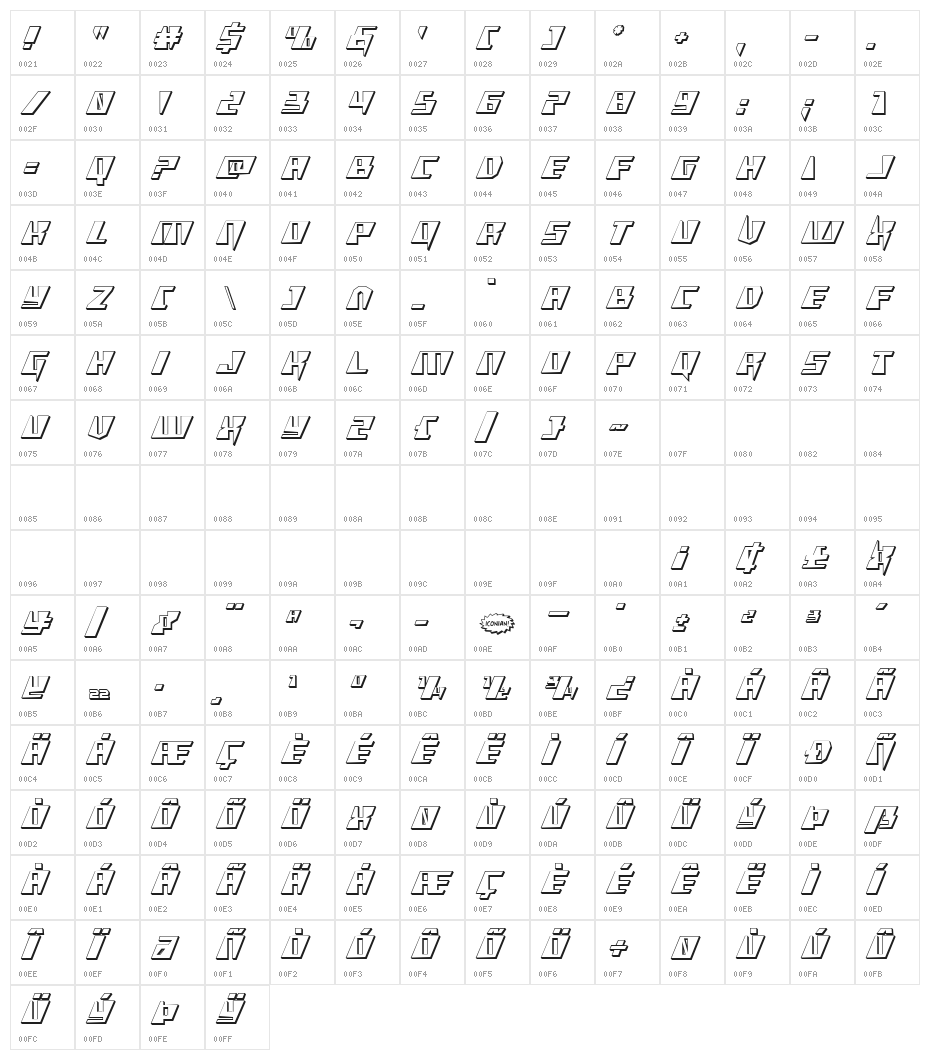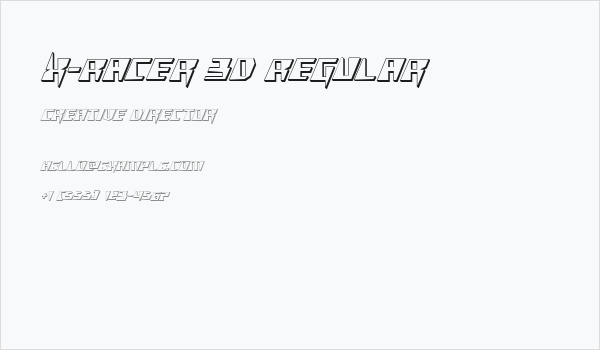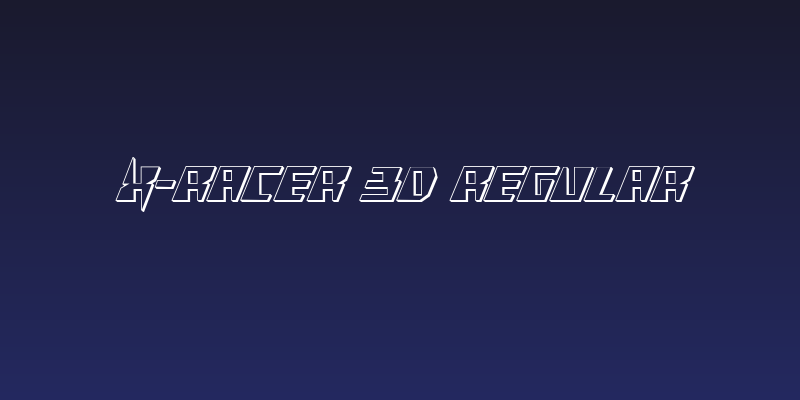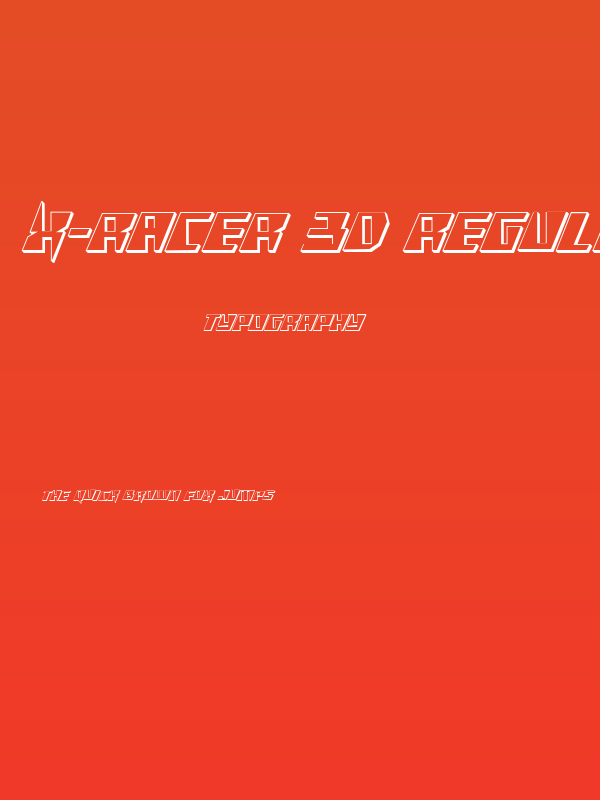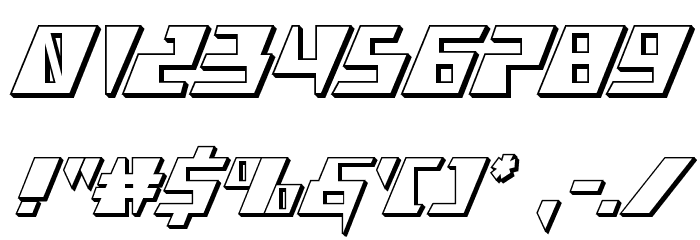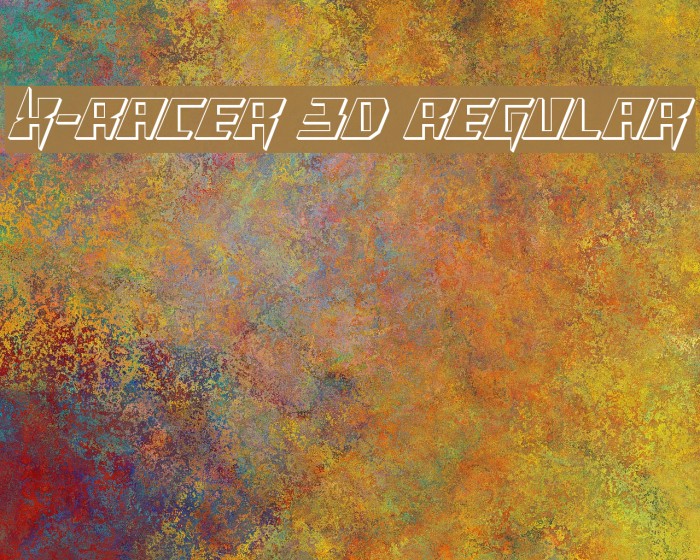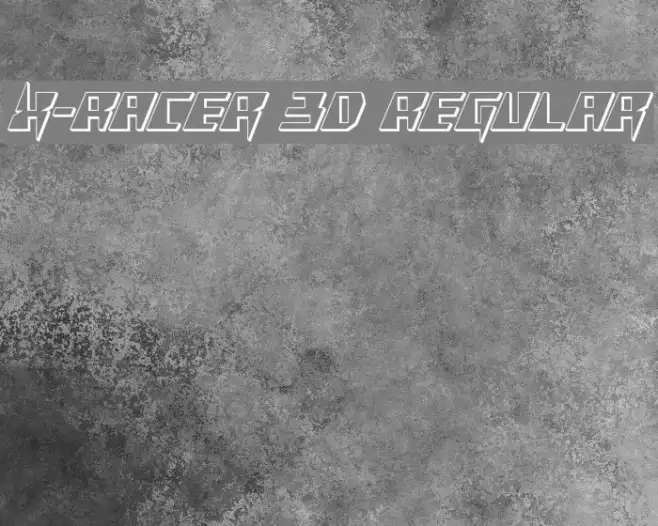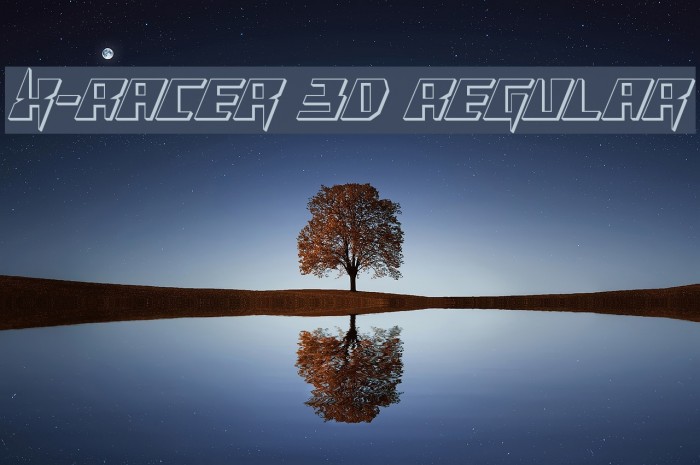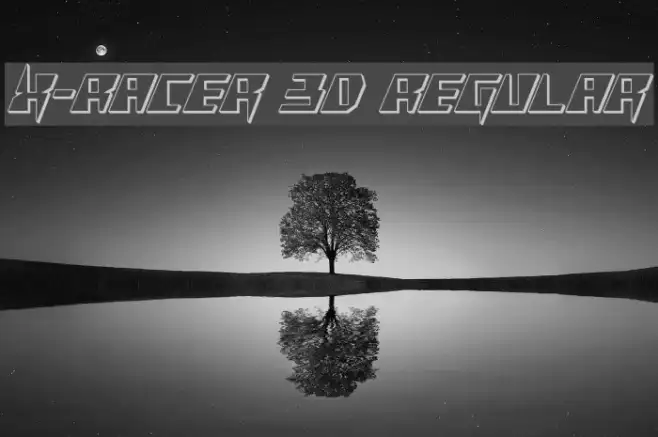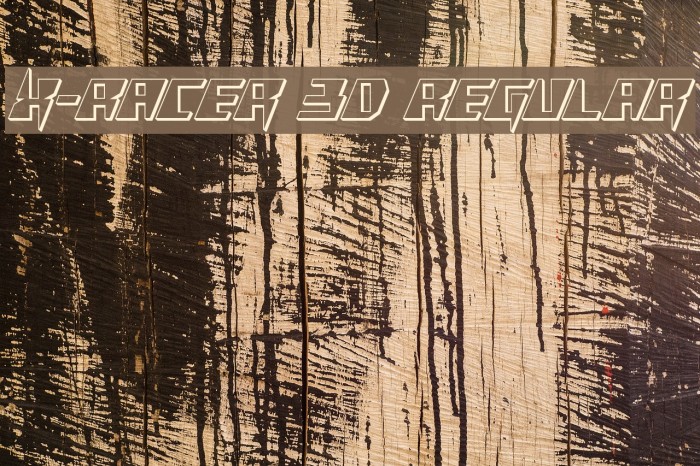
X-Racer 3D Regular Font
X-Racer 3D Regular Description
This font features a bold, angular design with a futuristic and dynamic appearance. The characters are outlined with a thick border, giving them a three-dimensional effect. The sharp edges and geometric shapes convey a sense of speed and modernity, making it ideal for projects that require a strong visual impact. The uppercase and lowercase letters maintain a consistent style, while the numerals and special characters complement the overall aesthetic. This font is particularly suitable for designs that aim to capture attention and convey a sense of motion or technology.
| Overall Style | Futuristic, Dynamic |
| Proposed Projects | Ideal for video game titles, tech-related branding, sports event posters, and futuristic-themed designs. |